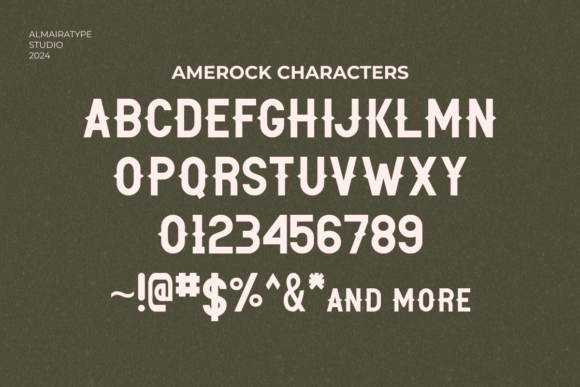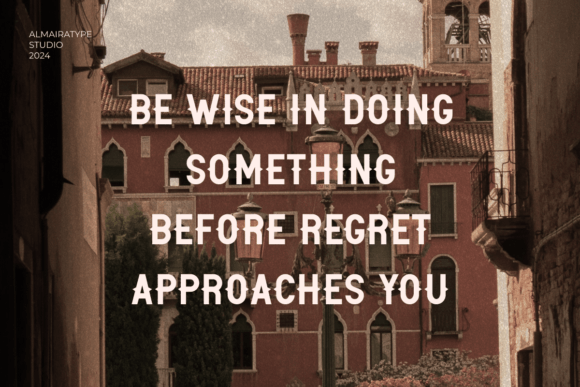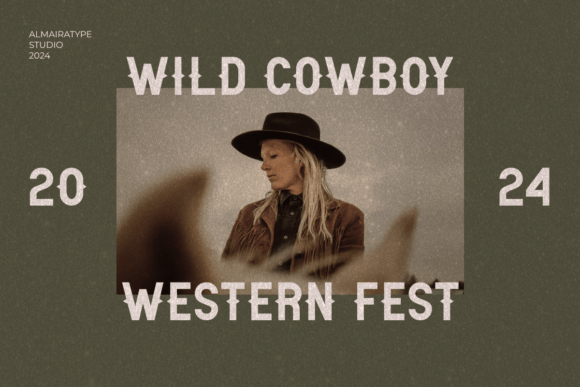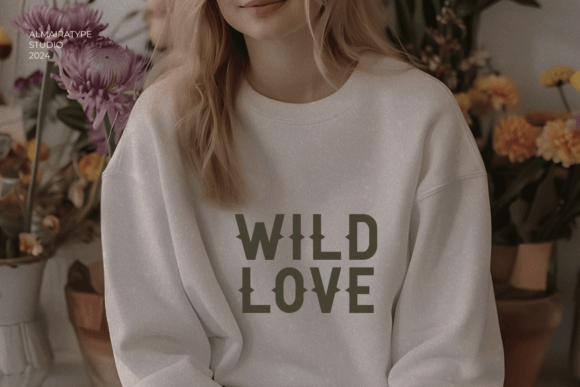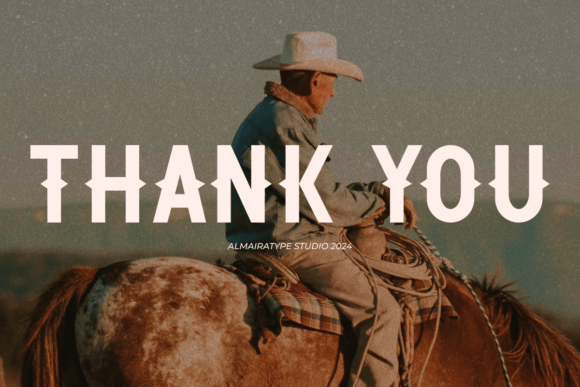
Introducing Amerock Font: A Vintage Western Sans Serif Classic
Are you a designer or crafter looking for a font that embodies the spirit of the American West? Look no further than Amerock Font, a vintage western sans serif font that is perfect for adding a touch of nostalgia and rugged charm to your designs. Inspired by the typography of the wild west, Amerock Font is a versatile and stylish choice for a wide range of creative projects.
The Inspiration Behind Amerock Font
Amerock Font is deeply rooted in the rich history of western typography. The font’s design is inspired by the classic signage and lettering of the American West, with its bold lines, rugged edges, and vintage flair. The result is a font that is both authentic and stylish, perfect for evoking the spirit of the wild west in your designs.
Perfect for Vintage-Style Designs
Amerock Font is ideal for creating vintage-style designs that require a touch of nostalgia and charm. Whether you’re designing posters, t-shirts, apparel, labels, quotes, stickers, or branding materials, this font is sure to add a unique and eye-catching element to your work. Its sans serif design gives it a clean and modern look, while its vintage inspiration adds a touch of warmth and character.
Sports Graphics and Beyond
But Amerock Font isn’t just limited to vintage-style designs. It’s also perfect for sports graphics, such as team logos, jerseys, and promotional materials. The font’s bold and rugged design makes it an excellent choice for sports teams and brands looking for a font that can convey strength, energy, and a sense of adventure.
Branding and Advertising
In addition to its use in vintage-style designs and sports graphics, Amerock Font is also suitable for branding and advertising. Its unique and stylish design makes it an excellent choice for companies looking to create a bold and memorable brand identity. Whether you’re designing a logo, brochure, or advertisement, Amerock Font is sure to make a lasting impression.
Key Features of Amerock Font
• Vintage western sans serif font: Amerock Font is inspired by the classic typography of the American West, with a bold and rugged design that’s perfect for adding a touch of nostalgia to your designs.
• Perfect for posters, t-shirts, and apparel: Amerock Font is ideal for designing eye-catching posters, t-shirts, and apparel that require a bold and stylish font.
• Suitable for sports graphics: The font’s bold and rugged design makes it an excellent choice for sports teams and brands looking for a font that can convey strength and energy.
• Great for branding and advertising: Amerock Font is a versatile font that can be used in a wide range of branding and advertising materials, from logos and brochures to advertisements and more.
Tips for Using Amerock Font
• Use it bold and big: Amerock Font is a bold font that’s designed to make a statement. Use it in large sizes to create eye-catching headlines and titles.
• Experiment with colors: Amerock Font looks great in a wide range of colors, from bold and bright to muted and earthy. Experiment with different colors to find the perfect look for your design.
• Pair it with other fonts: Amerock Font can be paired with a wide range of other fonts to create a unique and stylish look. Try pairing it with a serif font for a bold and modern contrast.